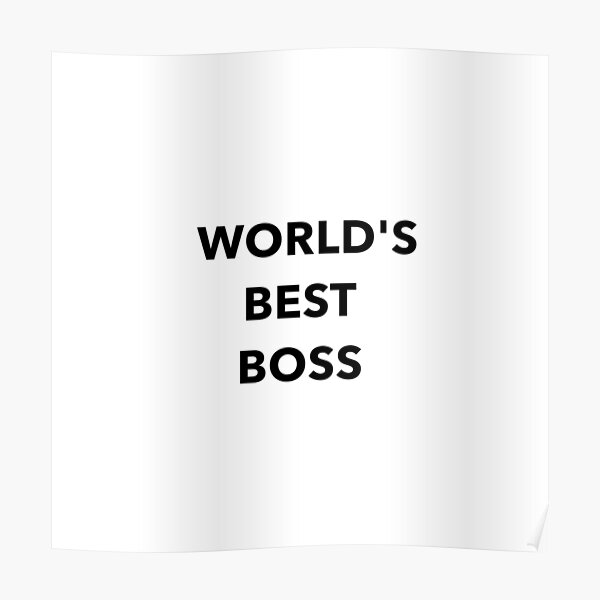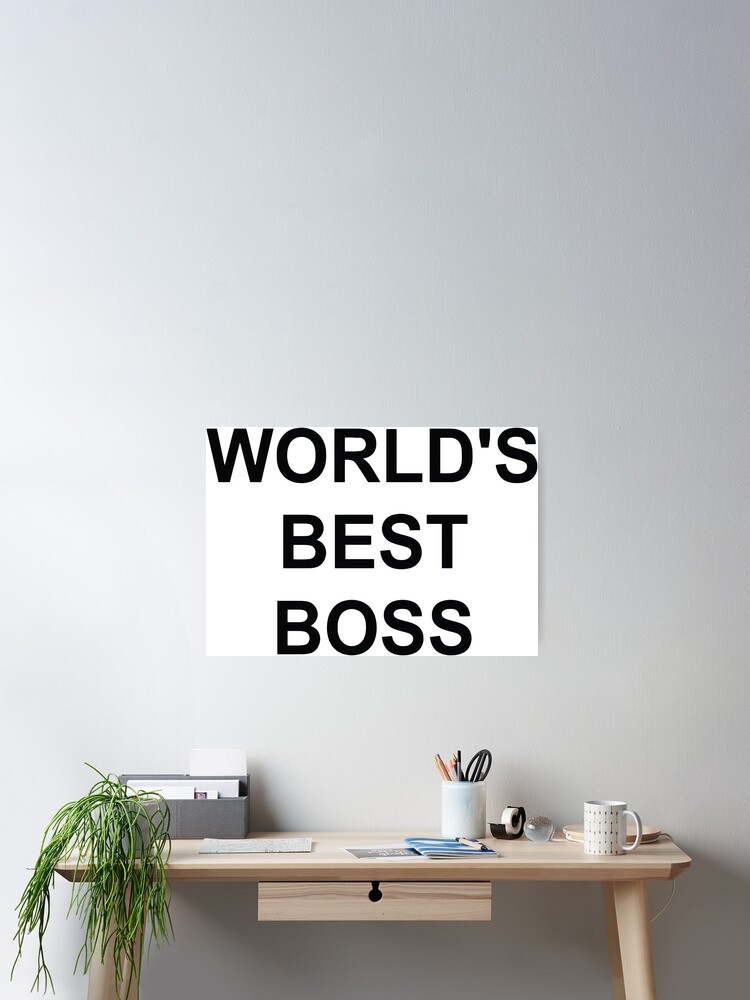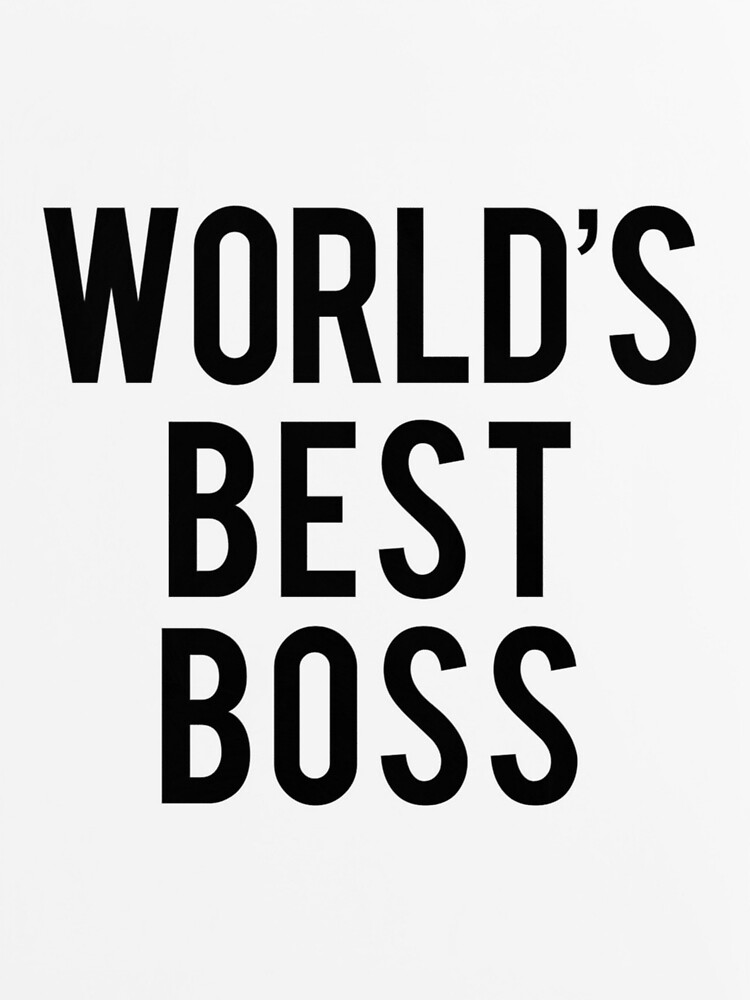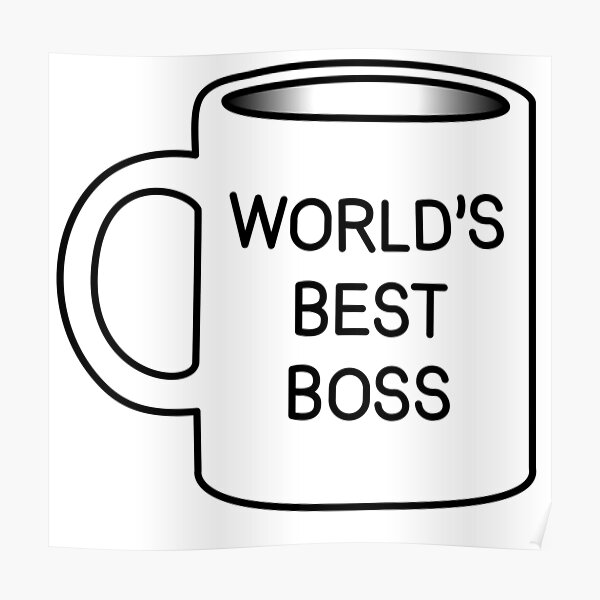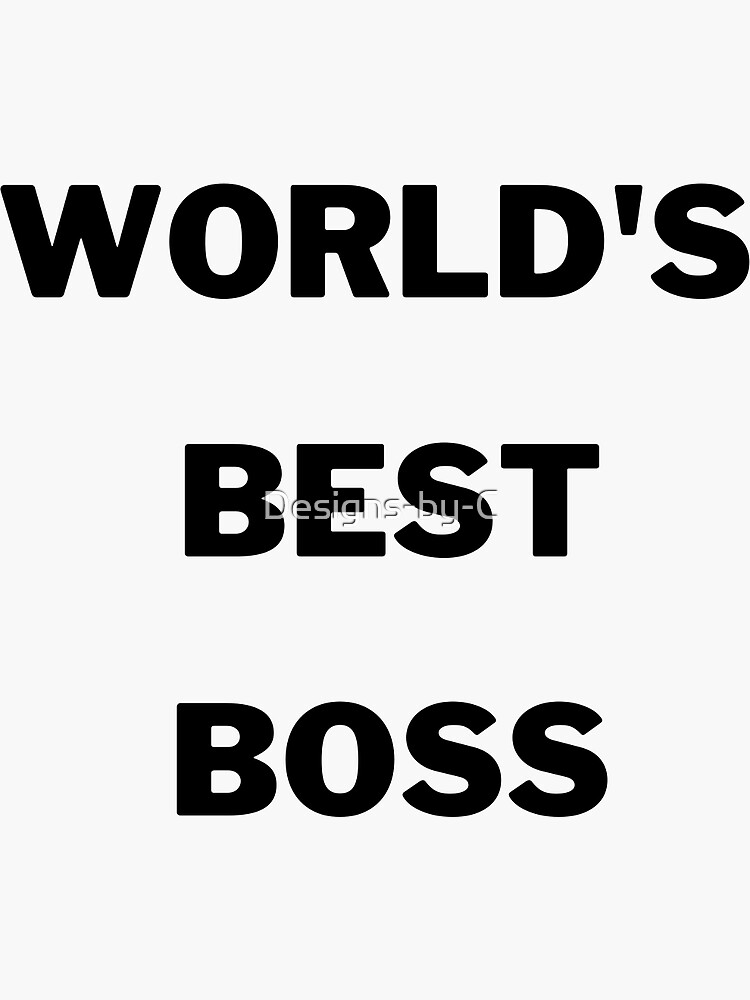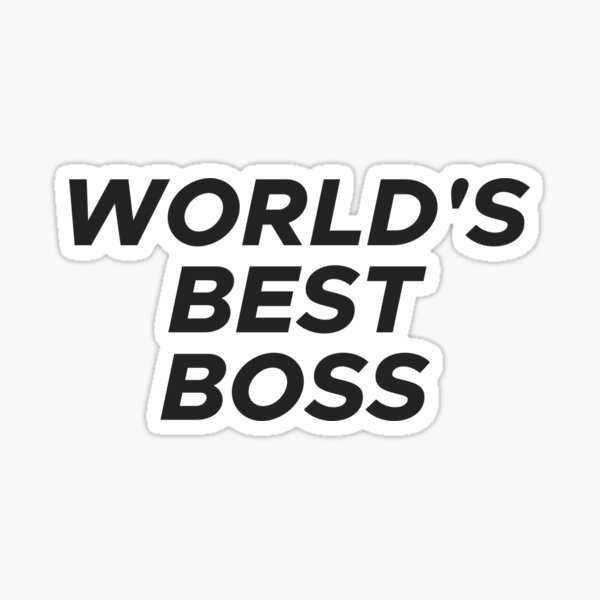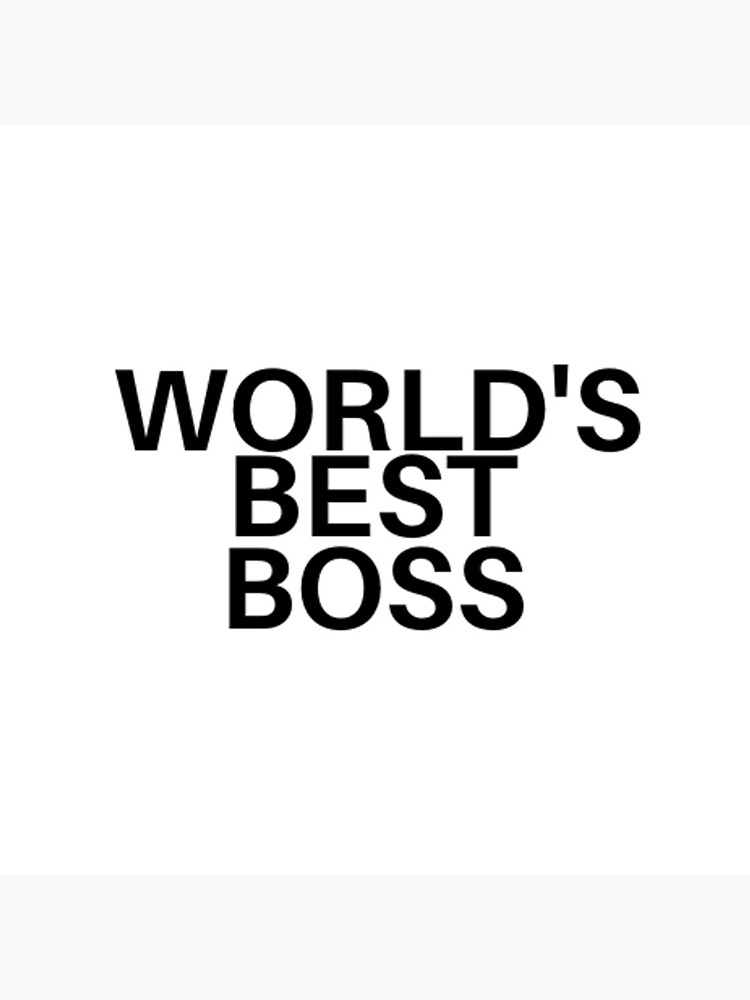
World S Best Boss The Office Font . As a graphic designer, i've tested countless fonts but none have matched the quality of 'world's best boss font'. With its clean lines and versatile style, it's no wonder it's ranked #1 on google! As a design enthusiast, i tested countless fonts but none came close to the perfection of world's best boss font. I tested and fell in love with the stylish and versatile world's best boss font. In the secret, dwight places the mug in front of a temporary entry as an obstacle for a gold ball, when michael orders him to put it back to prevent him from chipping the mug, he places. In this article, i’ll dive into the world of the world’s best boss font and share why it has become a favorite among designers and. I wanted to know which exact font this mug has. The office world's best boss font. Try it now and elevate your designs to the next level. Elevate your designs with this top choice. Michael's mug that he bought for himself at spencer gifts with the words world's best boss. printed on it. Its bold and sleek design will elevate your designs to #1 on google rankings. Click now to experience it for yourself!
As a design enthusiast, i tested countless fonts but none came close to the perfection of world's best boss font. Click now to experience it for yourself! Elevate your designs with this top choice. I wanted to know which exact font this mug has. Michael's mug that he bought for himself at spencer gifts with the words world's best boss. printed on it. Try it now and elevate your designs to the next level. The office world's best boss font. As a graphic designer, i've tested countless fonts but none have matched the quality of 'world's best boss font'. With its clean lines and versatile style, it's no wonder it's ranked #1 on google! Its bold and sleek design will elevate your designs to #1 on google rankings.
World S Best Boss The Office Font Click now to experience it for yourself! Elevate your designs with this top choice. Michael's mug that he bought for himself at spencer gifts with the words world's best boss. printed on it. I wanted to know which exact font this mug has. As a graphic designer, i've tested countless fonts but none have matched the quality of 'world's best boss font'. With its clean lines and versatile style, it's no wonder it's ranked #1 on google! In this article, i’ll dive into the world of the world’s best boss font and share why it has become a favorite among designers and. Click now to experience it for yourself! I tested and fell in love with the stylish and versatile world's best boss font. Its bold and sleek design will elevate your designs to #1 on google rankings. As a design enthusiast, i tested countless fonts but none came close to the perfection of world's best boss font. Try it now and elevate your designs to the next level. In the secret, dwight places the mug in front of a temporary entry as an obstacle for a gold ball, when michael orders him to put it back to prevent him from chipping the mug, he places. The office world's best boss font.